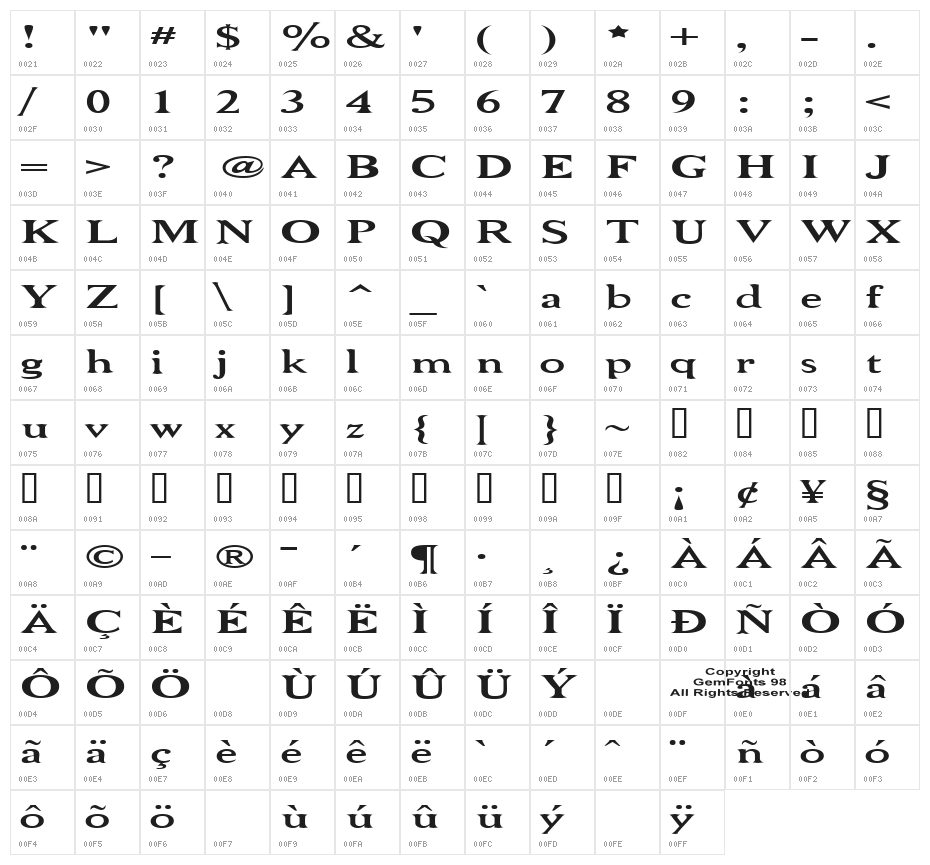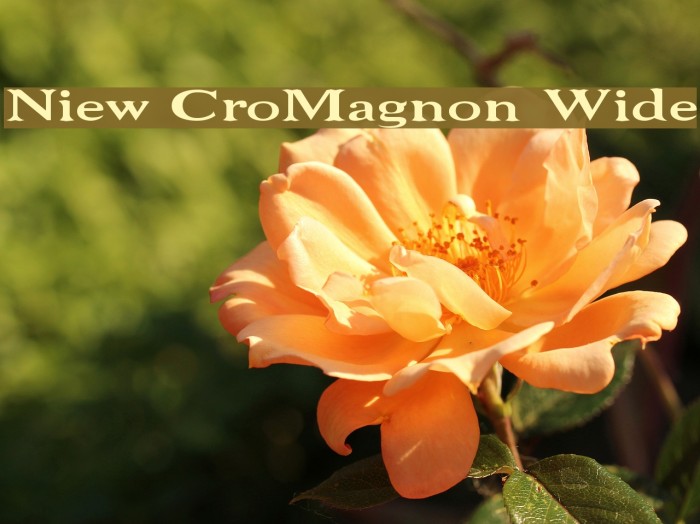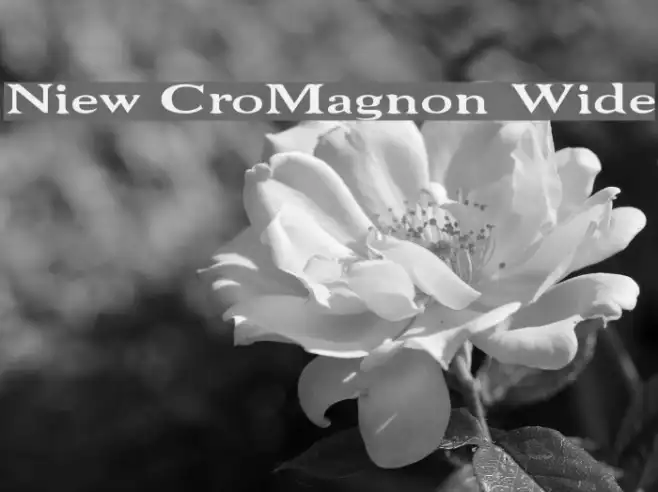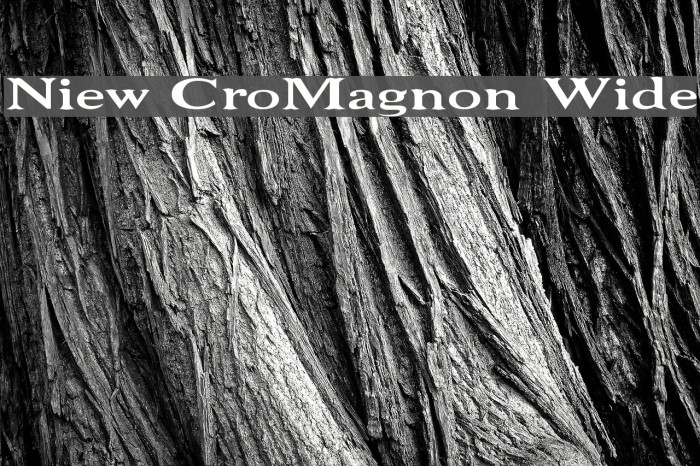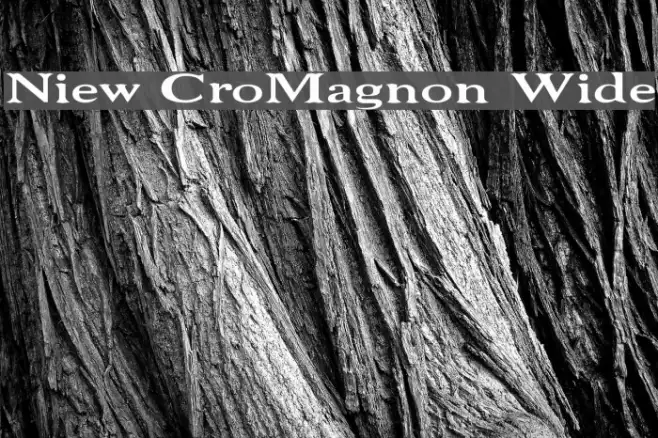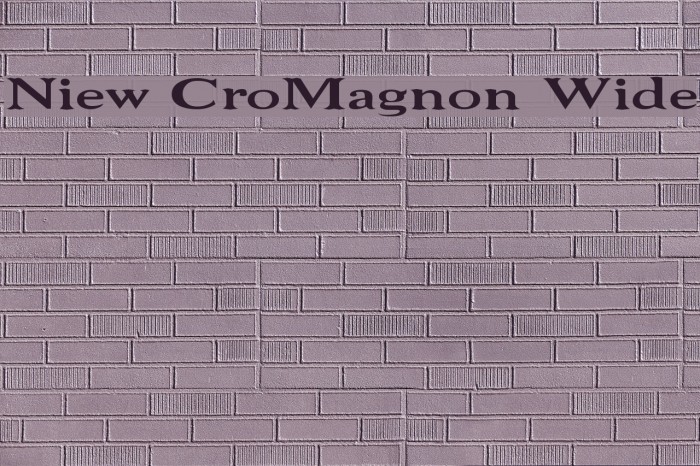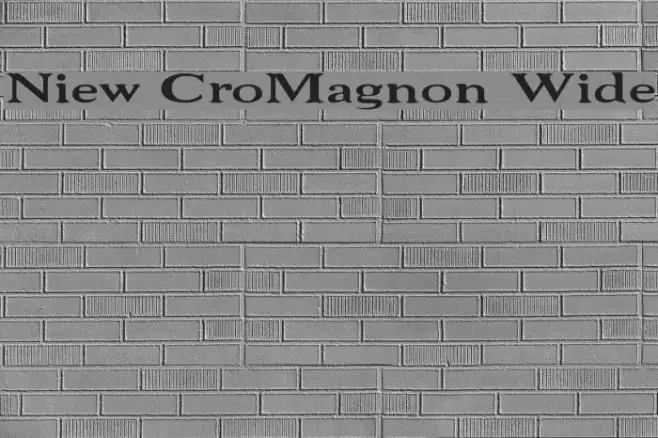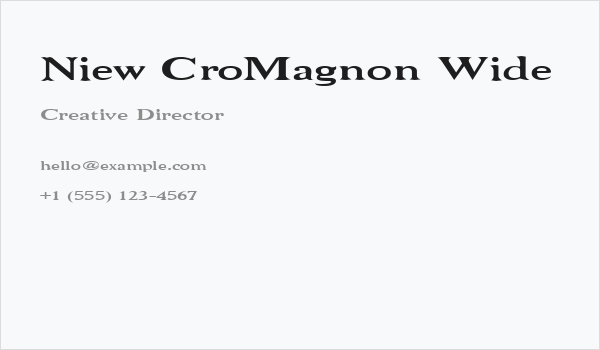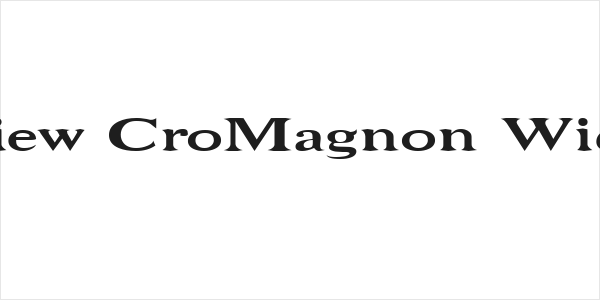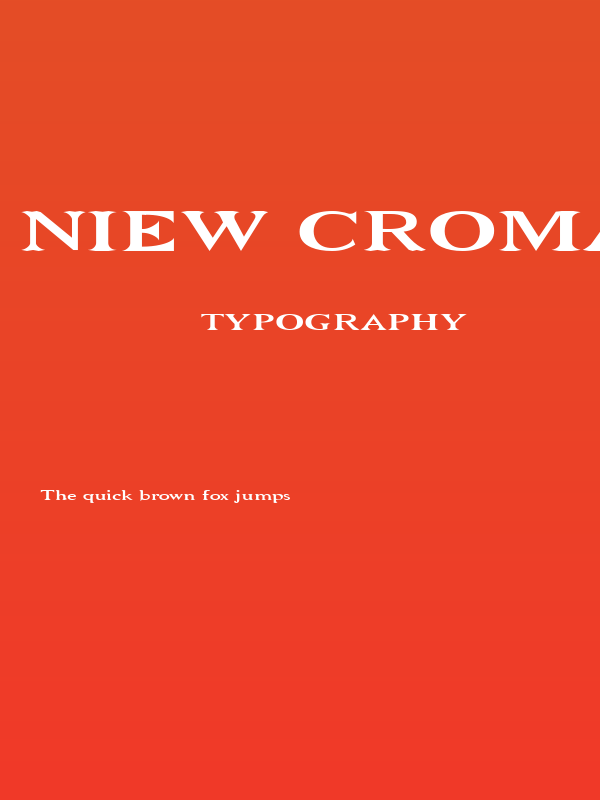
Niew CroMagnon Wide Font
Niew CroMagnon Wide Description
This font features a bold and striking design with a strong presence. The uppercase letters are characterized by sharp, angular serifs that give them a distinctive and authoritative look. The lowercase letters maintain a consistent style, with slightly rounded edges that add a touch of softness to the overall appearance. The numerals are robust and clear, making them highly legible. Special characters are designed with the same attention to detail, ensuring they complement the alphabetic characters seamlessly. The font's wide stance and generous spacing between characters enhance readability, making it suitable for various applications.